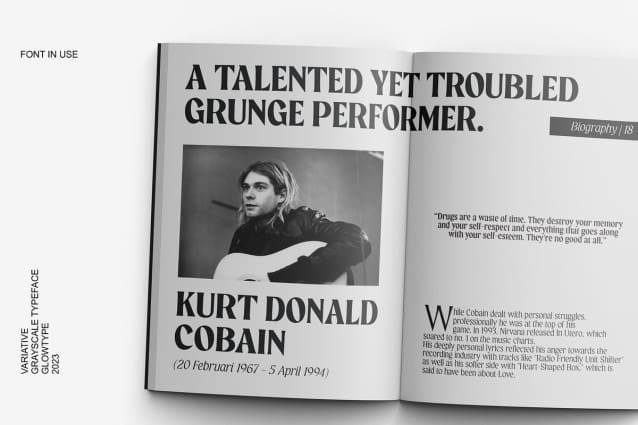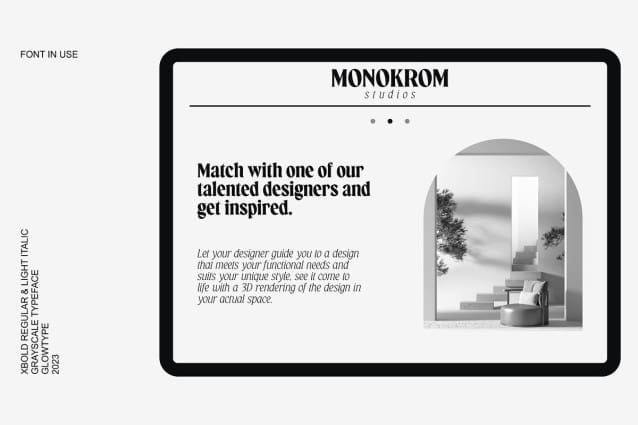
Grayscale Font
Grayscale Font A Classic Serif Family was created to express things in a classic yet glamorous way. Inspired by classic serif typefaces around the world with a modern twist. With a thick body, it has a more dominant impression.
Grayscale Font is perfect for display purposes such as editorial projects, Logo designs, Music Albums, Apparel Branding, product packaging, magazine headlines, or simply as a stylish text overlay on any background image.